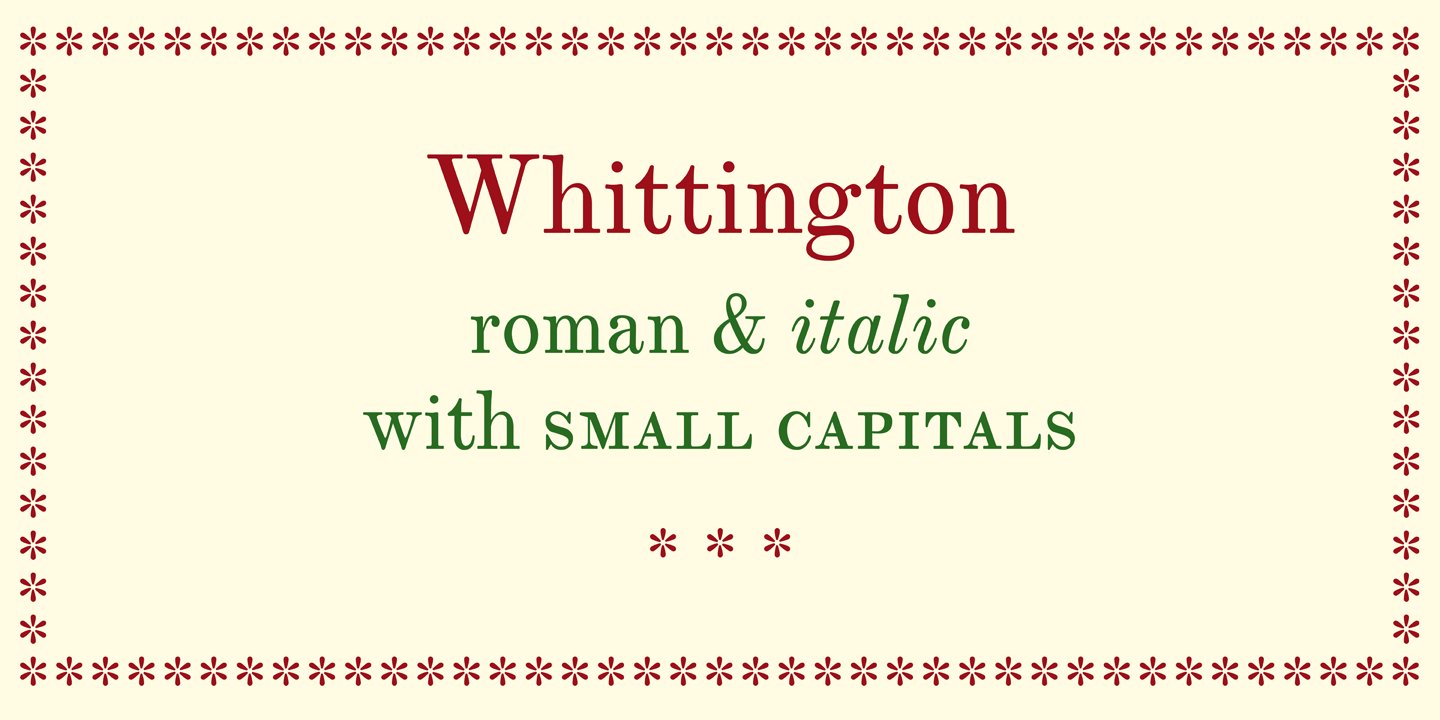
The Whittington Font is perfect for traditional British pub branding, heritage tourism materials, English countryside hotel signage, historical society publications, classic literature book covers, Victorian-era themed restaurants, English manor house marketing, traditional craftsmanship logos, and British cultural event promotions.
What makes the Whittington Font so exciting is its distinguished British heritage that instantly evokes the timeless elegance and cultural sophistication of classic English traditions. This refined typeface embodies the aristocratic dignity and literary excellence that defines British cultural heritage, creating an immediate impression of authenticity and established authority. The font's Whittington character communicates the cultural depth and traditional values that British heritage businesses need to attract audiences who appreciate genuine English culture and seek authentic experiences rooted in centuries of British tradition and literary excellence.
The Whittington Font family includes Regular weight featuring complete uppercase and lowercase character sets, comprehensive numerical collections, essential punctuation marks, and British cultural symbols that maintain the heritage aesthetic throughout your English tradition and cultural heritage design projects.
British heritage businesses and cultural organizations consistently select Whittington Font Free Download for projects that require authentic English appeal and traditional British communication. This exceptional typeface excels in environments where establishing cultural authenticity and British heritage credibility is crucial for attracting visitors and customers who value genuine English traditions and historical cultural experiences. The font's Whittington character helps communicate the quality and cultural significance that British heritage enthusiasts expect from established English institutions and traditional cultural service providers.
The distinctive qualities of Whittington Font reflect the rich traditions of British culture where literary excellence, cultural refinement, and historical continuity create meaningful heritage experiences and lasting cultural connections. Each character demonstrates the careful craftsmanship and cultural respect that characterizes successful British heritage businesses and traditional English cultural enterprises. The font's proportions and spacing create perfect balance between historical authenticity and contemporary accessibility that modern heritage businesses require for effective cultural communication and traditional marketing.
Contemporary British enterprises appreciate how Whittington Font communicates heritage authenticity and cultural excellence. Whether designing materials for English country hotels, creating branding for traditional British restaurants, or developing marketing for heritage tourism experiences, this font delivers the authentic character that distinguishes genuine British culture from generic historical theming. The typeface works exceptionally well for businesses emphasizing traditional craftsmanship, British heritage, and the sophisticated appeal of authentic English cultural traditions and historical experiences.
The versatility of Whittington Font extends across multiple heritage applications and British cultural marketing initiatives. Historic estates utilize its traditional character for visitor materials and heritage interpretation signage. British artisan craftspeople choose it to communicate their connection to traditional English manufacturing methods and cultural heritage. Cultural festivals rely on its distinguished appearance to attract audiences seeking authentic British cultural experiences and traditional English entertainment.
Digital heritage platforms benefit from Whittington Font's optimized performance across various cultural applications and British heritage communication channels. The font maintains its Whittington character whether displayed on heritage websites, mobile cultural tourism apps, or digital British cultural publications. This technical reliability ensures consistent brand presentation across all British heritage communication platforms and cultural engagement scenarios.
The emotional impact of Whittington Font resonates with audiences who appreciate British cultural heritage and seek authentic connections to English traditions and historical experiences. The typeface serves as a visual bridge to British cultural excellence and traditional values that helps heritage businesses build lasting relationships with visitors who value authentic English culture and traditional British experiences. This connection to cultural heritage and British authenticity makes it invaluable for establishing credible British cultural brand identities.
Heritage marketing specialists and British cultural design professionals recognize Whittington Font as an essential tool for authentic English branding. The font captures the essence of British cultural heritage while making traditional English culture accessible to contemporary heritage businesses who want to communicate their commitment to cultural authenticity, traditional values, and the enduring appeal of genuine British heritage in today's global cultural tourism marketplace.